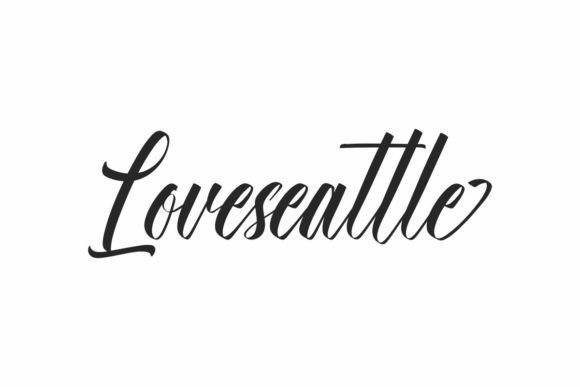
In a world awash with digital noise, where words dance across screens in a myriad of mundane monotones, allow us to introduce you to Loveseattle Font – a calligraphy-inspired dance of characters that will transform your designs into captivating spectacles. Its modern, easy-to-read aura is an ode to the timeless allure of handwritten artistry, a breath of fresh air in a sea of digital conformity. Whether you're a seasoned designer or a creative novice, Loveseattle Font is your gateway to unleashing designs that captivate and inspire.
Picture your brand logo, a visual symphony of elegance and sophistication, etched in the unique strokes of Loveseattle Font. Its casual calligraphy style lends an air of authenticity and approachability, inviting your audience into your brand's story with a warmth that resonates. Or, envision your invitations adorned with Loveseattle's charming curves, each letter a delicate brushstroke that whispers of elegance and grace. Your guests will feel a sense of anticipation and excitement, knowing they are about to embark on a journey of celebration and shared joy.
With Loveseattle Font, your product packaging becomes a canvas of creativity, a visual masterpiece that beckons customers to delve into your offerings. Its modern aesthetic complements a wide range of products, from sleek electronics to artisanal handmade goods, adding a touch of sophistication that elevates the perceived value of your creations. Let Loveseattle Font transform your packaging into a silent salesperson, eloquently communicating the essence of your brand and captivating the attention of discerning consumers.
Quotes, screen prints, signage, stationery, stickers, titles – these are just a fraction of the myriad applications where Loveseattle Font shines. Its versatility is a testament to its exceptional design, its ability to adapt and enhance any creative vision you may possess. Imagine your social media posts adorned with Loveseattle's stylish flair, your words dancing across the screen with a captivating allure that draws followers into your digital world. Or, envision your office stationery transformed into a symphony of sophistication, each letter a testament to your professionalism and attention to detail. With Loveseattle Font, the mundane becomes extraordinary, the ordinary transformed into the captivating.
Unleash your creativity with Loveseattle Font, a font that breathes life into your designs, transforming them into captivating expressions of your unique style. Its PUA encoding makes accessing the full repertoire of glyphs and ligatures a breeze, ensuring your designs are as distinctive and captivating as your imagination allows. Join the creative revolution, embrace the beauty of Loveseattle Font, and let your designs speak volumes, leaving an indelible mark on the hearts and minds of your audience.